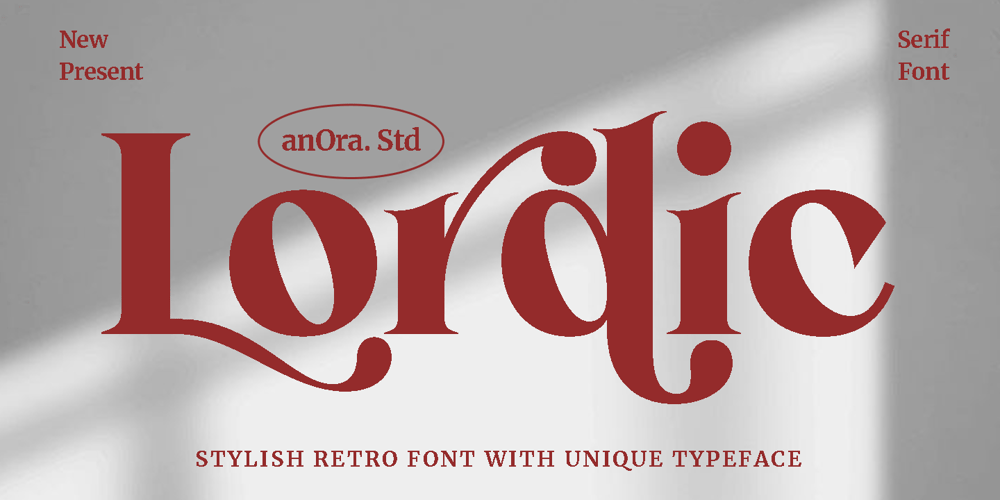
Lordic AS Font Family was designed by Sigit Mulyo Utomo and published by Anora Studio. Lordic AS contains 1 styles and family package options. Lordic is a Retro Display Serif Font with Huge Stylistic Alternates.SOFTWARE REQUIREMENTS :Fonts and alternate : No special software required they may be used in any basic program /website apps that allows standard fonts That’s it folks! You can go ahead and get cracking :)Follow My Shop For Upcoming Updates Including Additional Glyphs And Language Support. And Please Message Me If You Want Your Language Included or If There Are Any Features or Glyph Requests, Feel Free to Send me A Message. Have a Good Day !